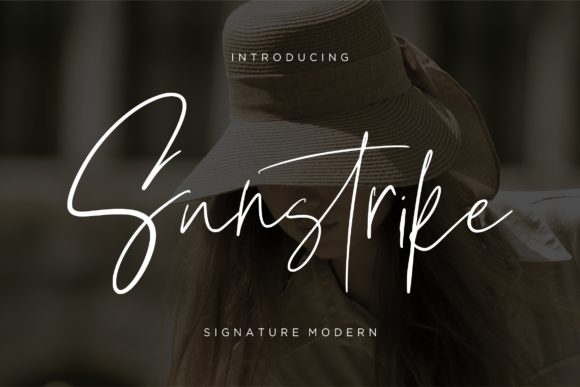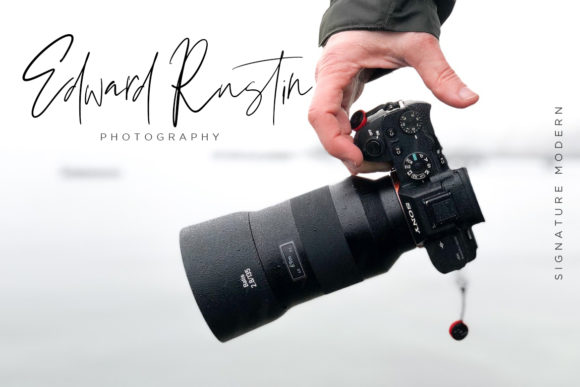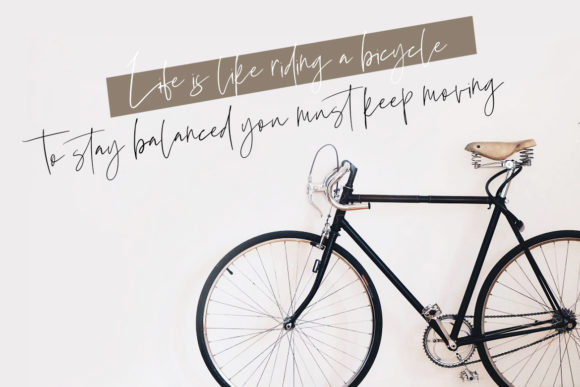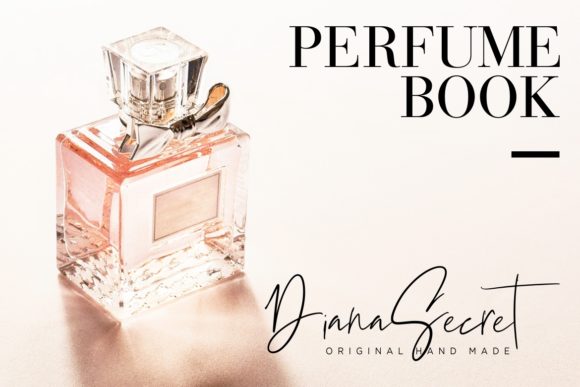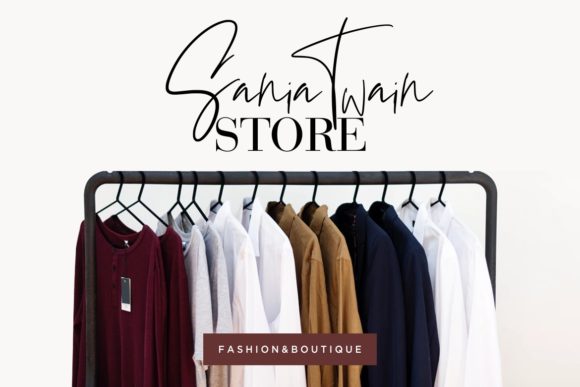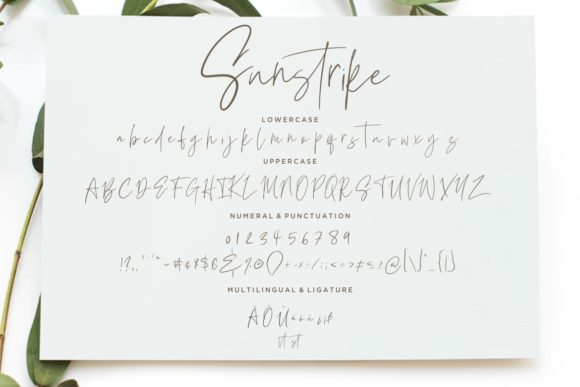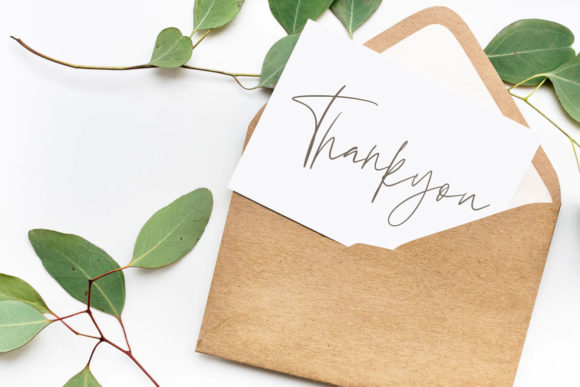
Sunstrike Font
About Sunstrike Font
Sunstrike is a fun and simple script font with a cool twist. Use it to add an authentic spark to any crafting project!